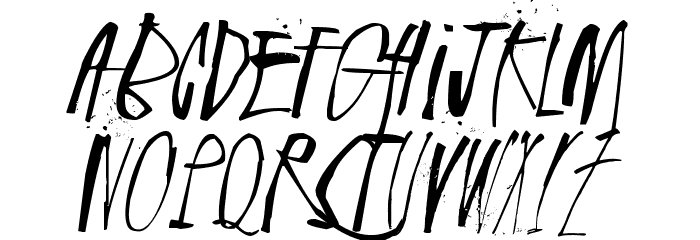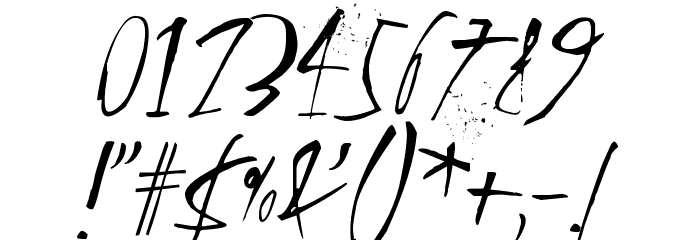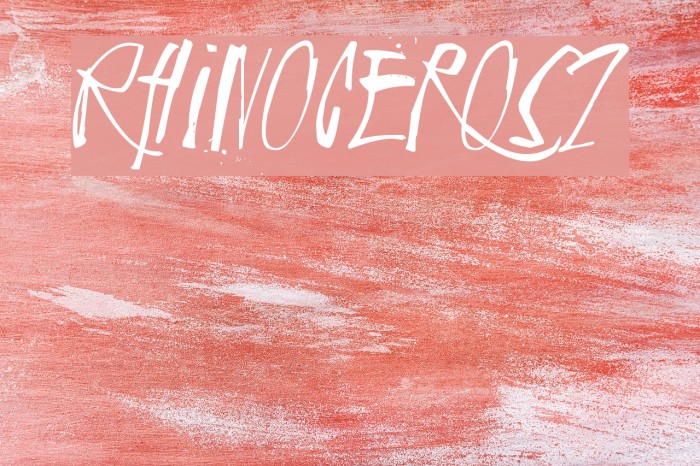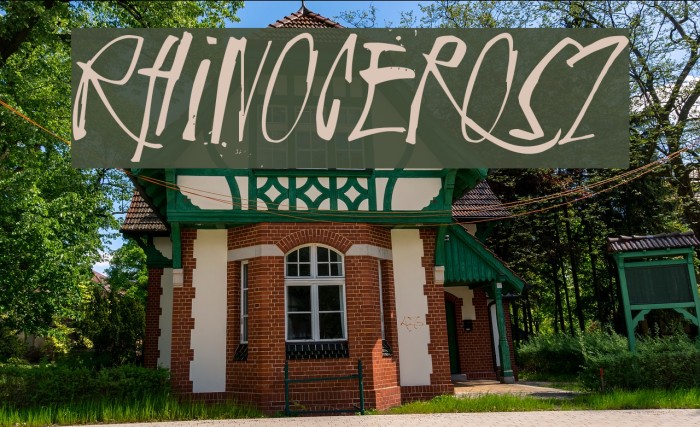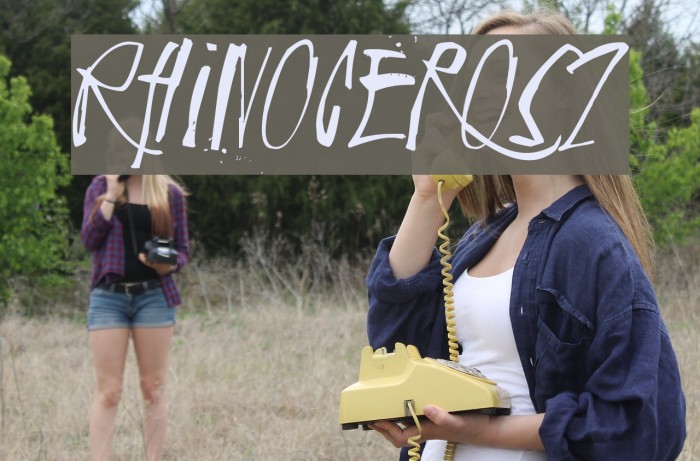
Rhinoceros2 Font
This font exhibits a dynamic and expressive style, characterized by its bold, brush-like strokes and irregular, hand-drawn appearance. The letters are slightly slanted, adding a sense of movement and energy. The uppercase and lowercase letters maintain a consistent style, with exaggerated curves and varying stroke widths that create a lively and artistic feel. The numbers and special characters follow the same energetic design, making the font suitable for creative and informal applications. The overall look is both modern and edgy, with a touch of grunge due to the splatter effects present in some characters.
A bold, brush-style font with dynamic strokes and a hand-drawn, artistic feel.
- Proposed Projects: Ideal for posters, album covers, branding for creative industries, and any project requiring a bold, artistic touch.
- Overall Style: Modern, Edgy, Artistic